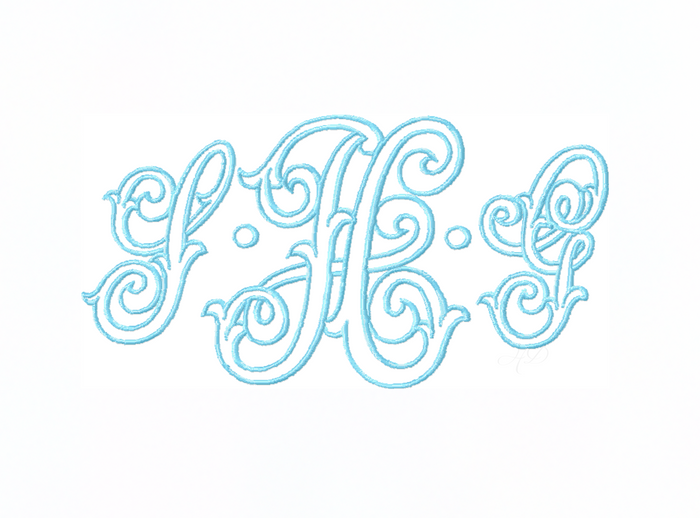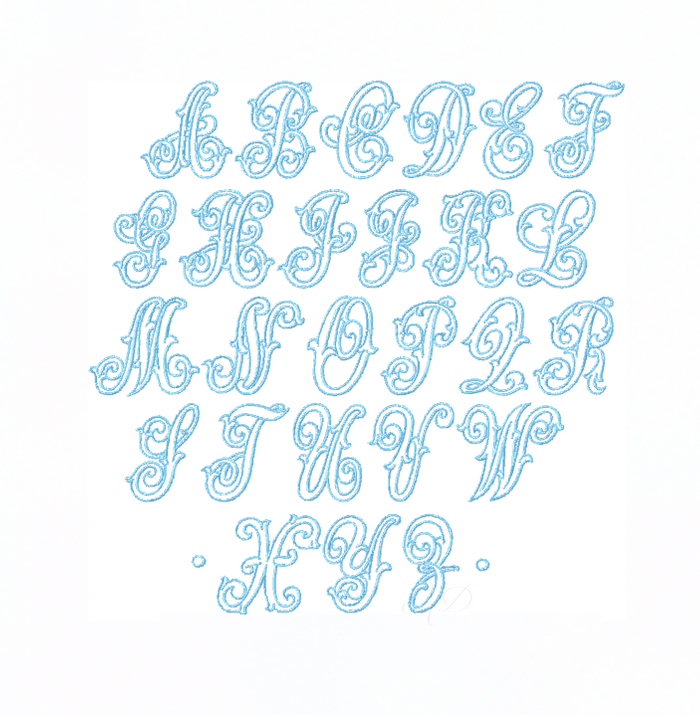
Embossed Monogram Satin Embroidery Font 4x4
The Embossed Satin Stitch Monogram Embroidery 4x4 Stitch font is a elegant embroidery font in a satin stitching for embroidery machine monogramming.
Each size includes uppercase letters in each size as well as an accent dot to create a monogram as shown in the first image.